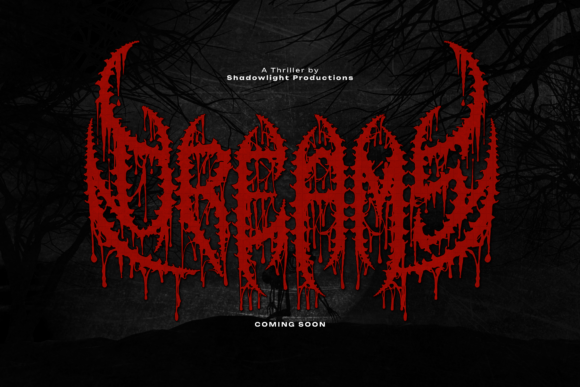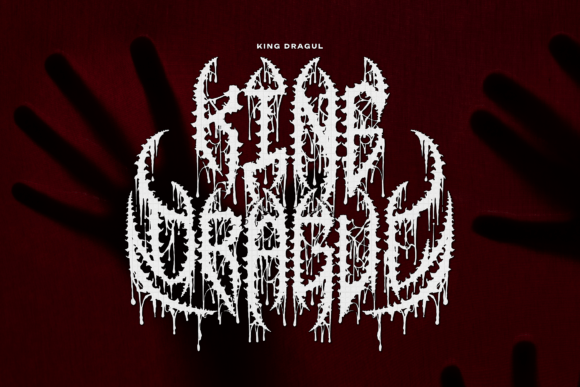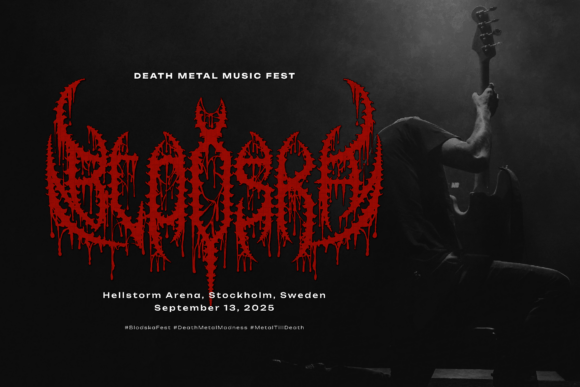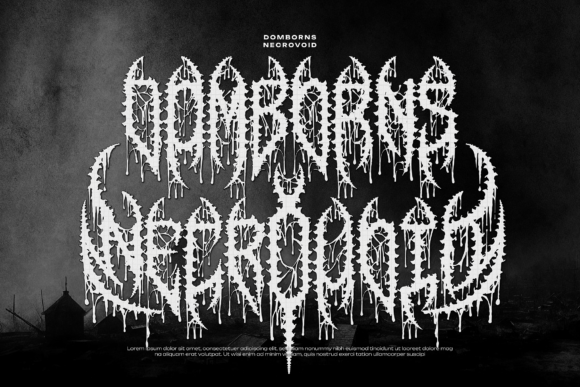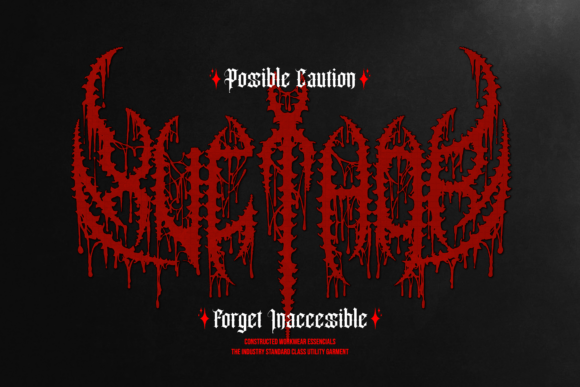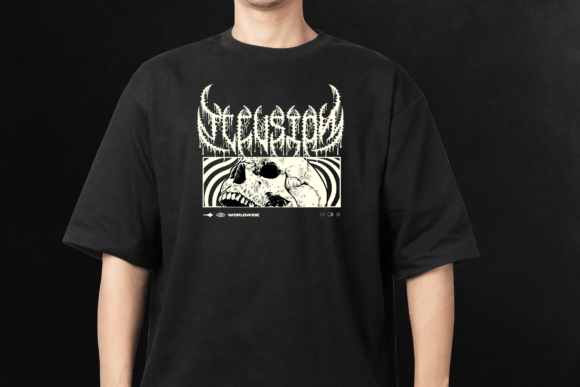
Introduction to Mortvex Font
Mortvex is a death metal font, suitable for any projects such as: logos, branding projects, homeware designs, product packaging, mugs, quotes, posters, shopping bags, t-shirts, book covers, name card, invitation cards, greeting cards, label, photography, watermark, special events, and all your other lovely projects that need a Death Metal Font taste.
Mortvex Font offers exceptional quality and versatility, making it a valuable addition to your design toolkit. Whether you’re creating for personal projects or commercial use, Mortvex Font delivers professional results.